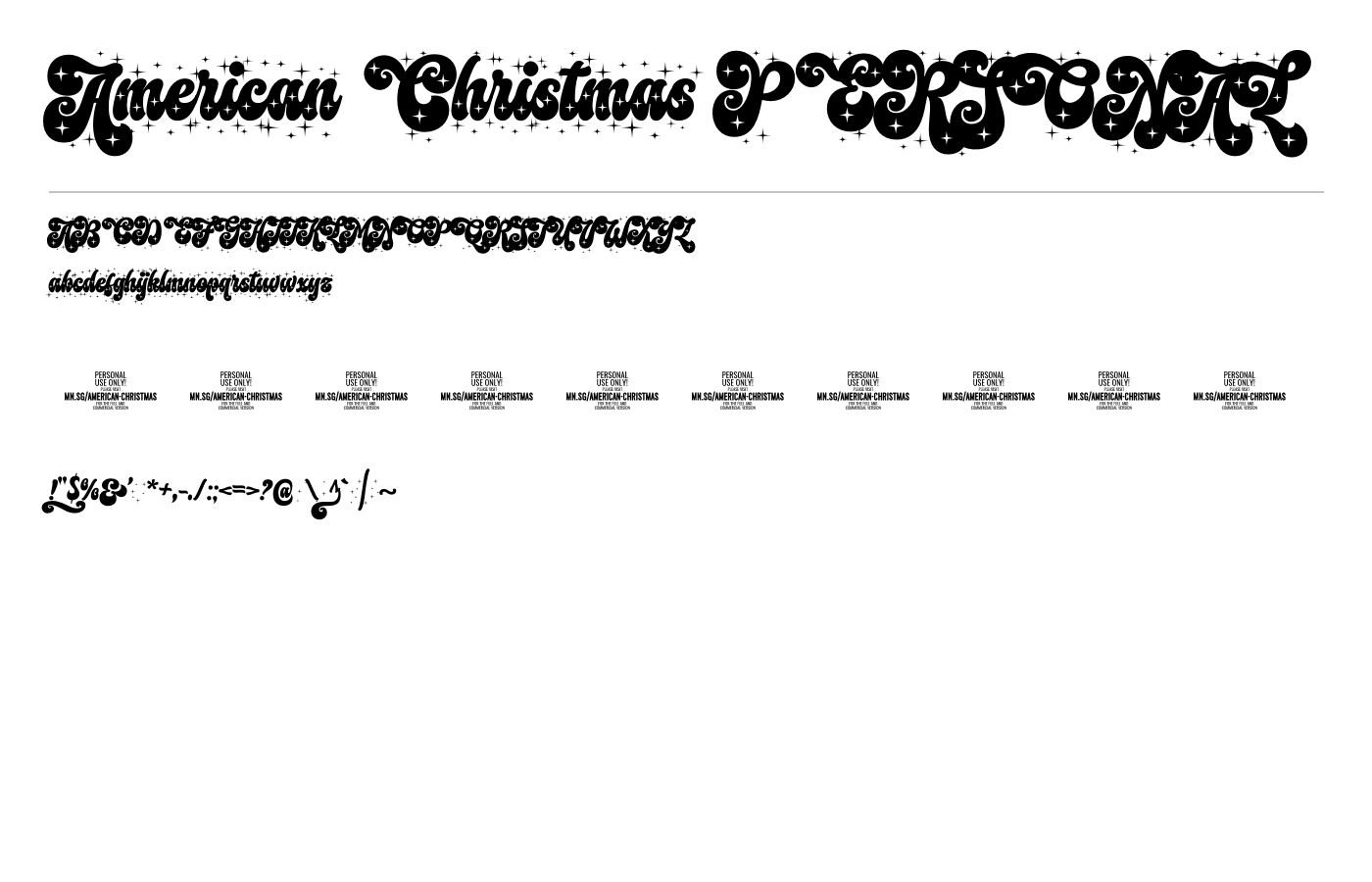
American Christmas PERSONAL is a bold, whimsical script font with thick, rounded letterforms adorned by playful star-like sparkles, evoking a festive and joyful holiday spirit. Its dense, decorative style works best for eye-catching headlines, seasonal branding, and fun packaging, where a lively and celebratory mood is desired. This font’s unique charm makes it perfect for Christmas-themed designs that want to convey warmth and cheer in a distinctive, artistic way.
American Christmas PERSONAL Font
About American Christmas PERSONAL Font